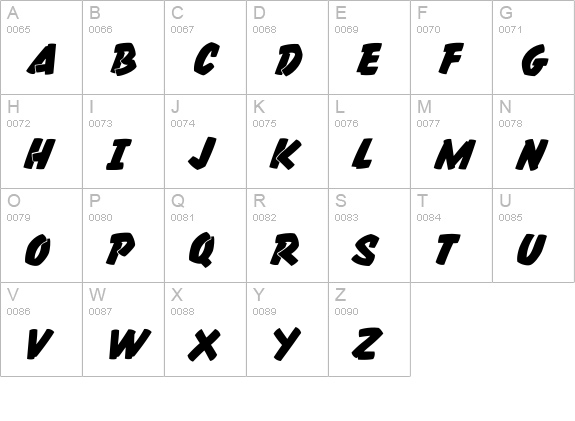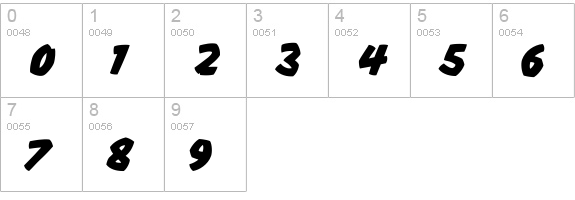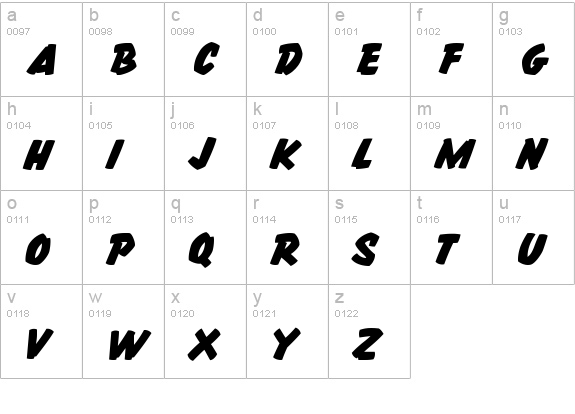
CCThrills Font Details
Introducing CCThrills font, a whimsical and playful typeface that will add a touch of excitement to your designs. With its unique style and quirky charm, CCThrills is perfect for a variety of creative projects, from branding to social media graphics. This font features bold, eye-catching letterforms that are sure to make a statement. Whether you're looking to create a fun and energetic logo or a vibrant poster, CCThrills has got you covered. The best part? CCThrills is available for free download at FontsMarket.com. So go ahead and unleash your creativity with this dynamic and lively font today!